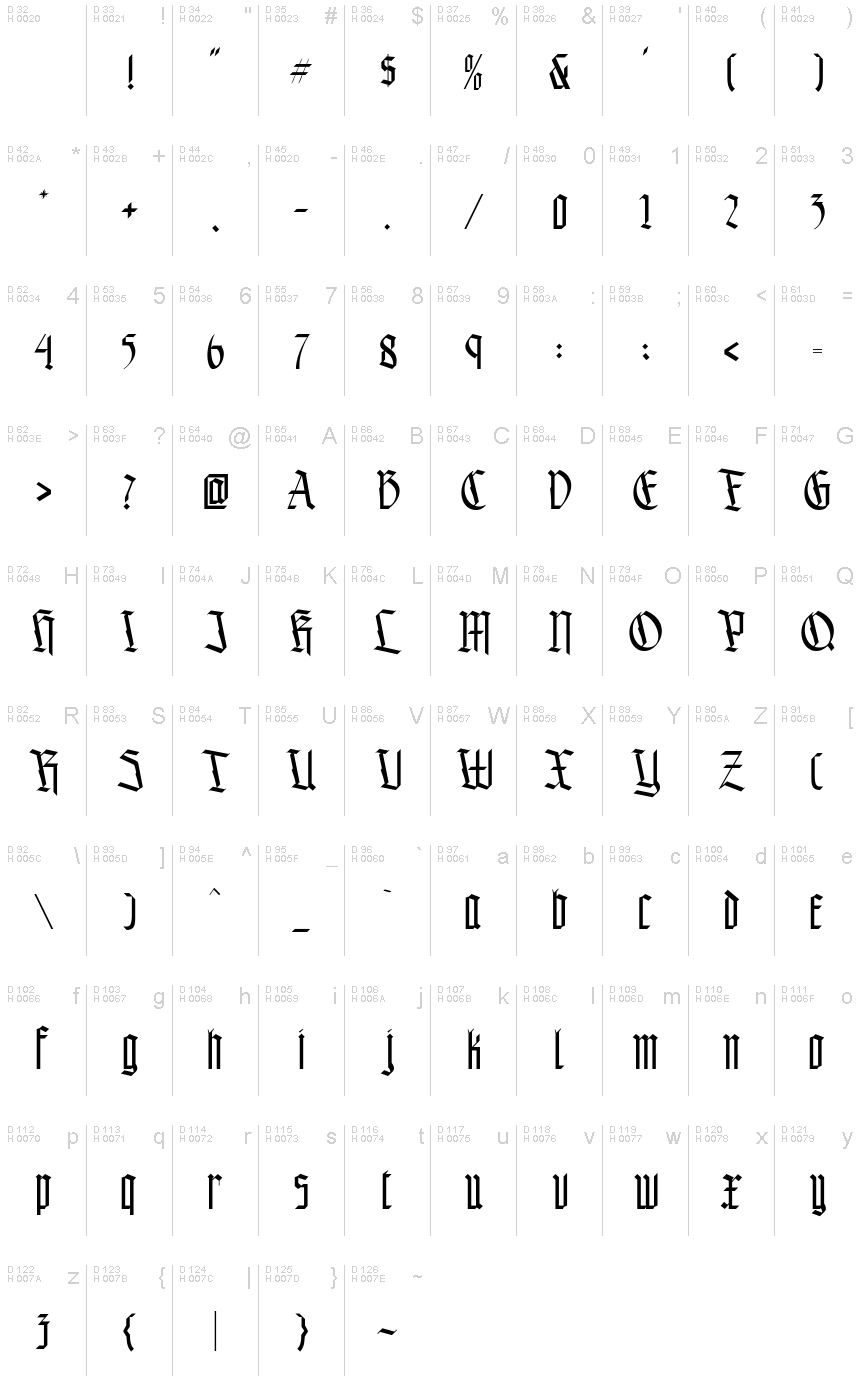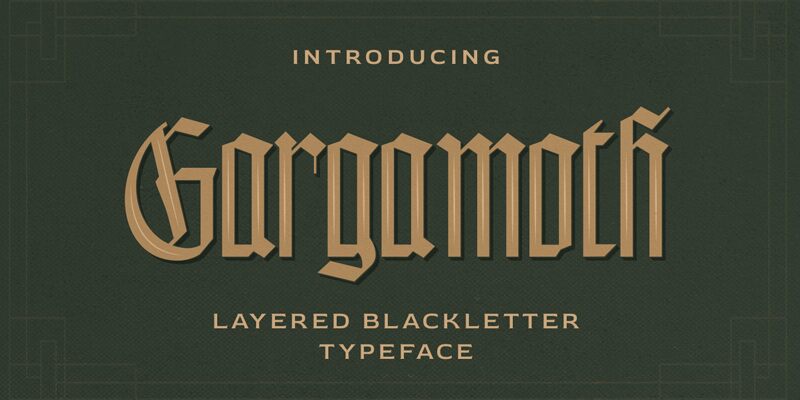
GargamothDemo
Gargamoth, a striking modern gothic font crafted by Letterhend Studio, captivates with its bold, condensed lines and sharp, angular edges. This distinctive typeface exudes a captivating blend of gothic grandeur and contemporary refinement, radiating a sense of authority and commanding presence. Its unique visual identity lends an air of mystery and intrigue, making it a versatile choice for a diverse range of design applications.
Gargamoth's condensed form and dramatic flourishes make it an excellent selection for eye-catching headlines, impactful branding, and captivating editorial content. Its strong, distinctive character shines through in various mediums, from print to digital, making it a versatile option for projects that require a bold, attention-grabbing typographic treatment.